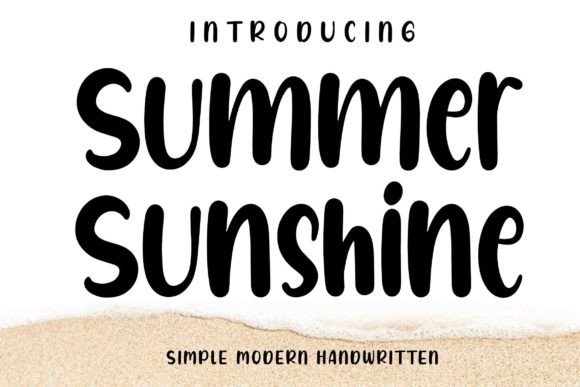
Introducing Summer Sunshine Font, the captivating script font that will add a cheerful touch to your creative projects! This handwritten font, brought to you by Handles Creative, is your go-to choice for greeting cards, t-shirts, social media posts, and any design you envision. Its playful and charming characters will add a warm glow to your creations.
With Summer Sunshine Font, your Christmas cards will shine brighter than ever before. Its whimsical style perfectly captures the joy and magic of the holiday season. Create cards that transport your loved ones to a winter wonderland, filled with festive cheer and heartfelt messages.
This versatile font is not just for Christmas. Let your imagination soar as you use Summer Sunshine Font to design enchanting invitations, eye-catching social media posts, and unique t-shirt designs. Add a touch of whimsy to your blog posts, capturing your readers' attention with stylish headlines and captivating text.
Summer Sunshine Font is more than just a font; it's an experience. Its cheerful strokes will inspire you to create designs that evoke happiness and joy. Download Summer Sunshine Font today and let your creativity flourish!